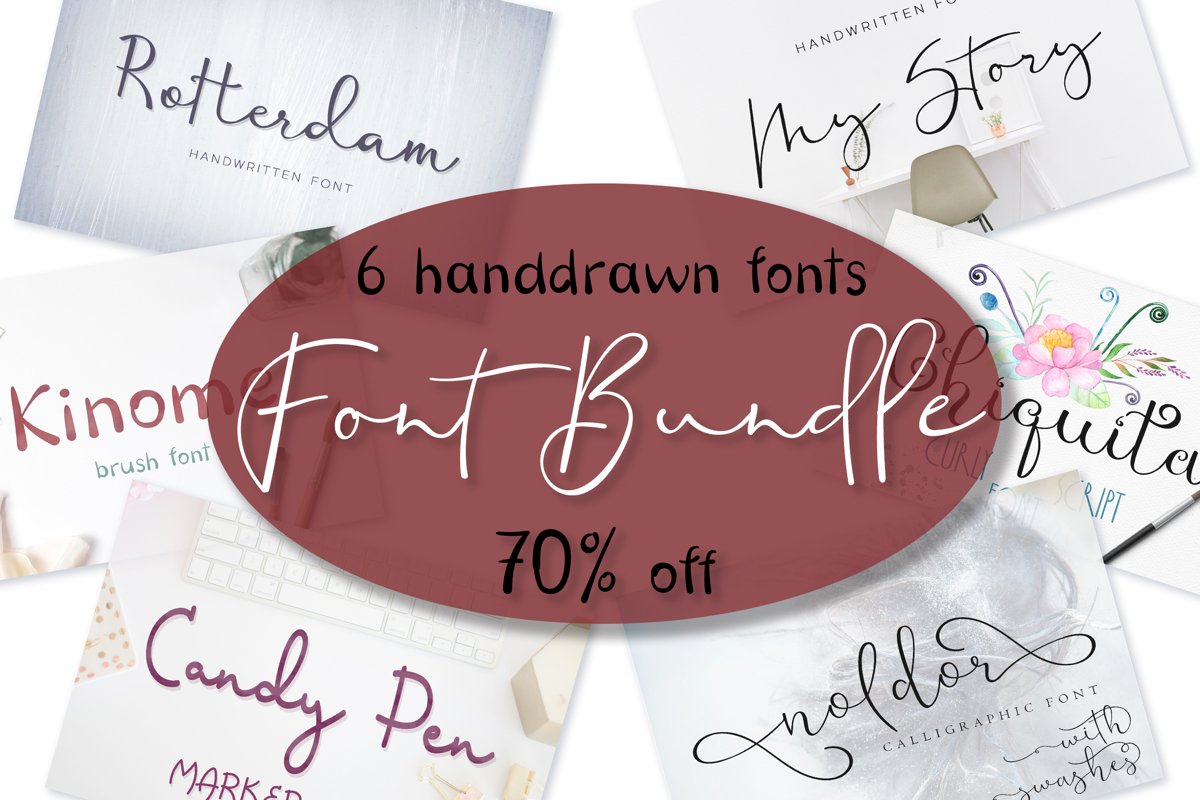
Font bundle - 6 handwritten and calligraphy fonts
Font bundle include 6 hand drawn my best selling fonts:
• Noldor - casual font with swashes
• Rotterdam - modern calligraphy font
• My story - modern calligraphy font
• Kinome - simple brush font
• Candy pen - monoline marker font
• Chiquita - curly fun font